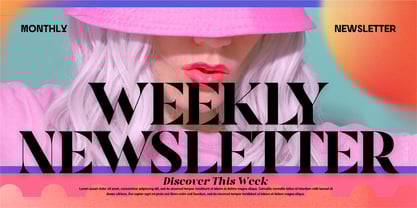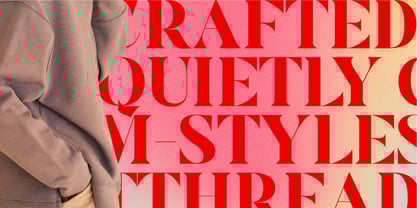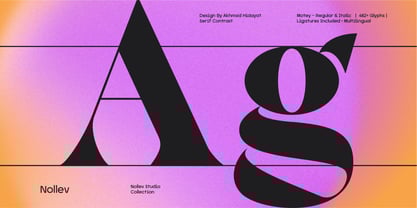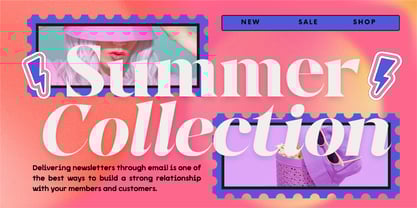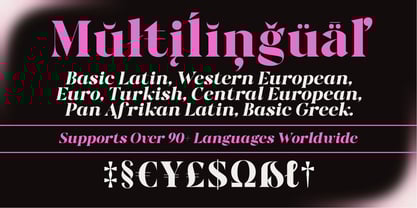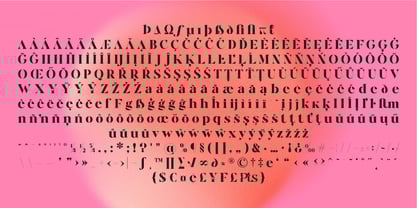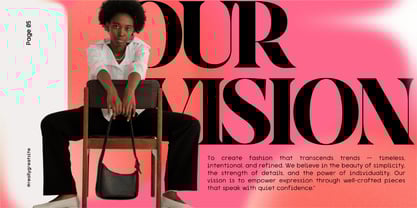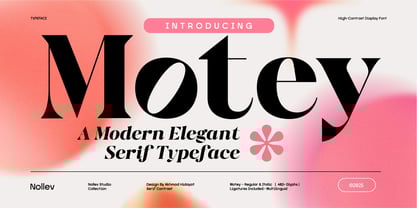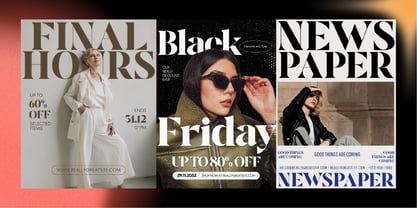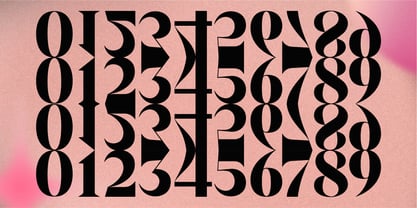
Motey
von Nollev
Die Schriftfamilie Motey wurde von Akhmad Hidayat entworfen und von Nollev veröffentlicht. Motey enthält 2 Stile und Familienpaketoptionen.
Motey
Modern High-Contrast Display Serif
• Styles: Regular & Italic
• Glyphs: 482 (ligatures)
• Languages: 90+ Latin-based scripts
What Makes Motey Special
Motey combines dramatic thick–thin strokes with crisp, angled terminals to deliver an instantly luxurious feel. Its two styles—Regular for strong headlines and Italic for elegant emphasis—let you create cohesive branding, standout editorial layouts, or eye-catching invitations with ease.
Ideal For:
Brand identities, magazine covers, wedding stationery, premium packaging, web hero text, and any project where sophistication matters.